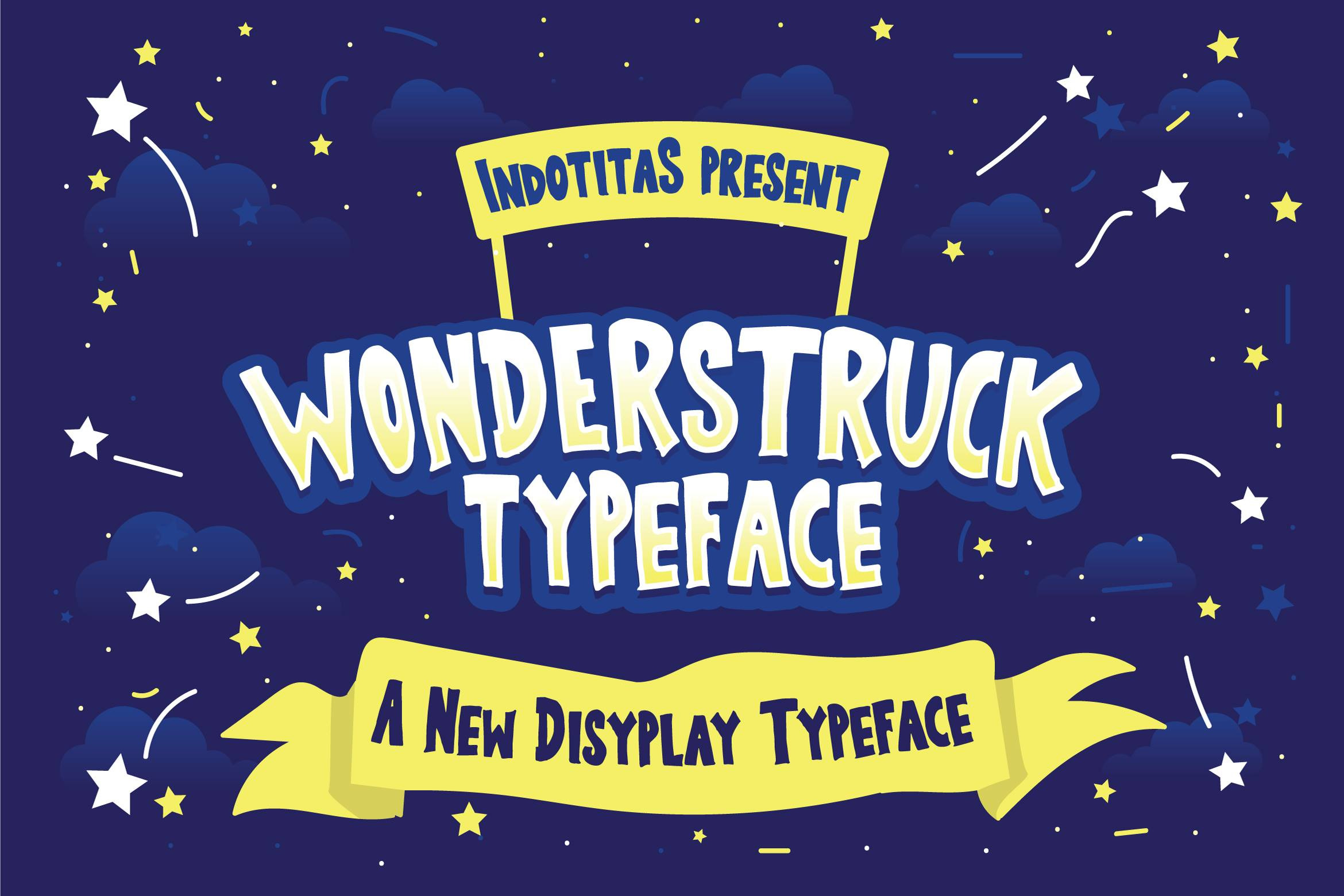
Wonderstruck Typeface
Wonderstruck Typeface is a fun display font intended to use in old school, retro and vintage design styles. It is suitable for poster, lettering, greeting card, t-shirt design etc. This font contains with special ornamental uppercase that can be used to create a stand out and attractive message.
Wonderstruck Typeface font comes with the alternative characters which can be accessed by using OpenType savvy programs such as Adobe Illustrator and Adobe InDesign.
- ALL-CAPS A-Z and a-z
- Ligature support